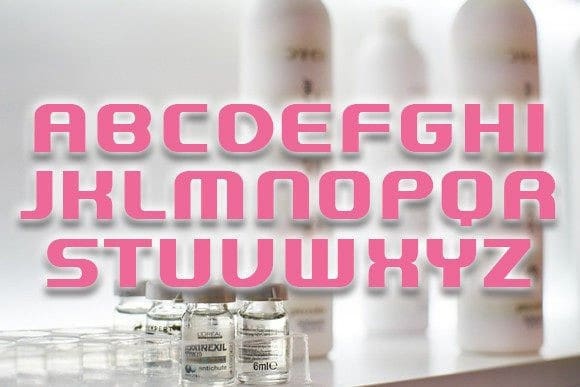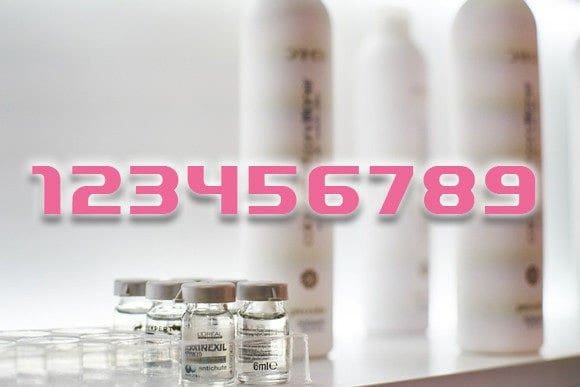
Double Dose Font
Double Dose Font is a neat and professional display font that will look awesome on any of your designs. Use this font on posters, flyers, and headlines.